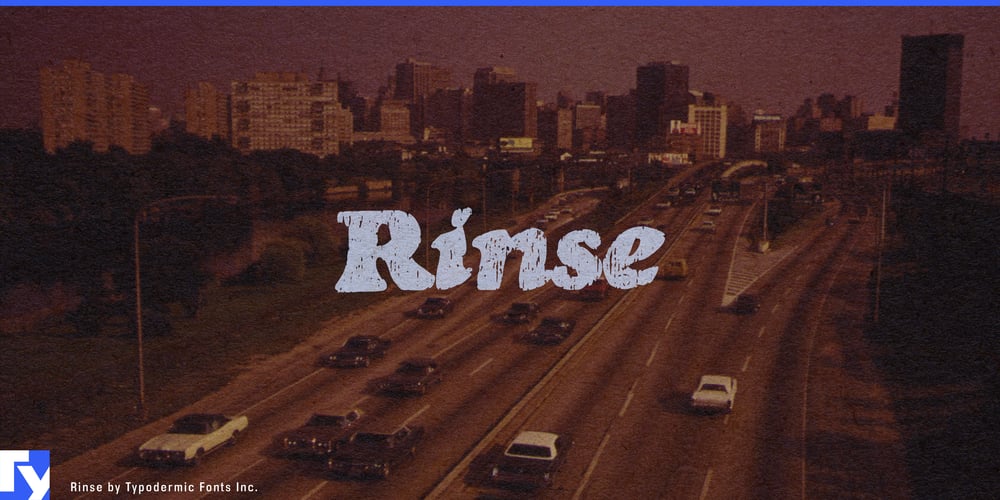
Rinse Font Family was designed by Ray Larabie and published by Typodermic. Rinse contains 1 styles and family package options. Kick back and chill with Rinse, the typeface that’s all about keeping it cool and casual. Inspired by the laid-back spirit of vintage tees, Rinse takes the classic Goudy Heavyface Italic and gives it a groovy makeover that’ll make your designs feel like they just stepped out of a time machine from the coolest era.Rinse isn’t here to play by the rules—it’s here to break them with style. Its rough-and-ready look brings a touch of authenticity to your designs, like that perfectly worn-in concert tee you’ve had since forever. But don’t let its relaxed vibe fool you—Rinse is a master of visual communication, speaking fluently to audiences from Oslo to Lisbon, from Dublin to Istanbul. What really sets Rinse apart is its funky letter pair ligatures. These typographic jam sessions break up the monotony and add a natural, freestyle flow to your text. It’s like each word is improvising its own melody, creating a visual rhythm that’s impossible to ignore.Choose Rinse when you want your message to feel as comfortable and inviting as a summer afternoon. Its unique blend of vintage charm and modern versatility makes it perfect for brands and projects that aren’t afraid to let their hair down. Whether you’re designing merch for the hottest indie band, crafting a menu for a hip new food truck, or just want to add some retro cool to your social media posts, Rinse has got your back.In a world that’s always rushing, Rinse reminds us to slow down and enjoy the ride. So go ahead, give your designs a Rinse cycle. Your audience won’t just read your message—they’ll feel it, groove with it, and remember it long after the sun goes down.